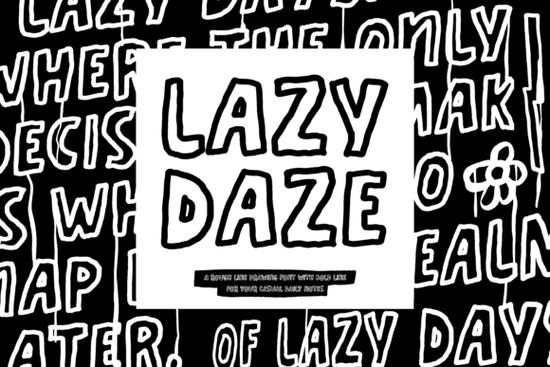
If you're looking for a hand-drawn font that feels relaxed but still makes a visual statement, Lazy Daze Font might be exactly what your next project needs. With its rough edges and bold outline, it brings a laid-back energy to everything from social media graphics to product packaging without looking sloppy or unfinished.
Designed for casual creativity, Lazy Daze works especially well when you want something that feels personal and approachable. Think quote posters, apparel mockups, greeting cards, or even branding for a small café or boutique. The bold outline gives it enough presence to stand out at larger sizes, while the handwritten texture keeps it grounded and friendly.
What kinds of projects is Lazy Daze best suited for?
This font shines in contexts where personality matters more than polish. Here are a few real-world uses:
- Social media posts – Especially for lifestyle brands, wellness coaches, or indie shops wanting to convey warmth.
- Fashion or merch mockups – T-shirts, tote bags, or stickers with short phrases or slogans.
- Event invitations – From backyard BBQs to craft fairs, it sets an informal but intentional tone.
- Hand-lettered style quotes – Great for printable wall art or digital downloads on Etsy.
Because of its bold stroke and textured finish, Lazy Daze holds up well even when printed on fabric or textured paper something not all display fonts can claim.
How does Lazy Daze compare to other casual display fonts?
Not all hand-drawn fonts strike the same balance between readability and character. If you like Lazy Daze but want to explore similar styles, consider checking out alternatives like Sunny Muff, which has a softer bounce, or Choks, offering chunkier letterforms with a playful twist. For something more rounded and bubbly, Pinky Pop adds cheerful energy, while Zombora leans into quirky irregularity without losing legibility.
Each of these fonts lives in the same creative neighborhood as Lazy Daze ideal for designers who want expressive typography without diving into overly ornate scripts or rigid sans-serifs.
Where can I see Lazy Daze in action?
One of the best ways to gauge if a font fits your style is to see it used in real designs. Try pairing Lazy Daze with clean sans-serif body text for contrast, or layer it over soft watercolor backgrounds for a cozy aesthetic. Because of its bold outline, it also works well as a standalone headline even against busy patterns.
Tips for getting the most out of Lazy Daze
- Avoid tiny sizes – The texture and outline details get muddy below 18pt.
- Use generous spacing – Slight letter-spacing (tracking) helps the rough edges breathe.
- Limit uppercase use – While all-caps looks bold, mixing cases often feels more natural with handwritten styles.
- Pair thoughtfully – Combine with minimalist fonts like Montserrat or Lato for balance.
And remember: less is more. Lazy Daze already carries strong visual weight, so you usually don’t need extra effects like drop shadows or outlines unless you’re going for a very specific retro or grunge look.